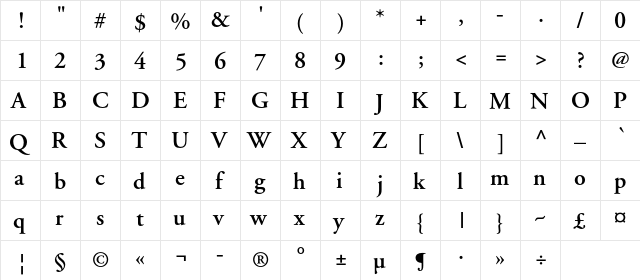
APCGaramond-SemiBold Regular
Design Context for APCGaramond-SemiBold Typeface
APCGaramond-SemiBold offers clean, dependable letterforms without strong stylistic allegiance, making it a practical choice for designers who need flexibility. The heavy weight commands attention and anchors typographic hierarchies.